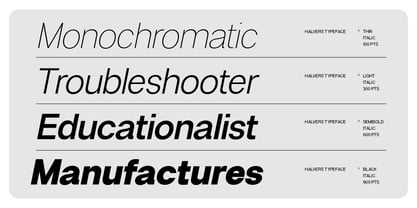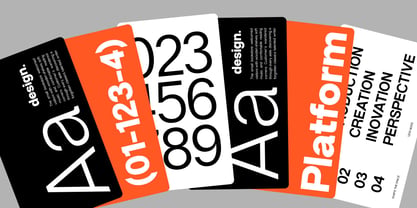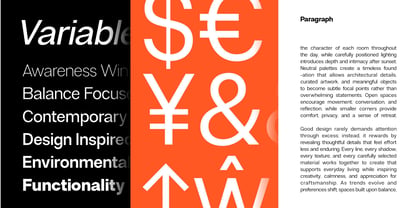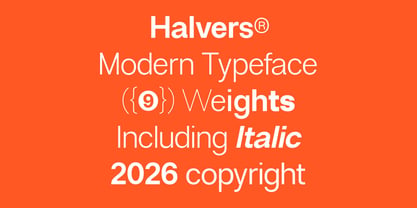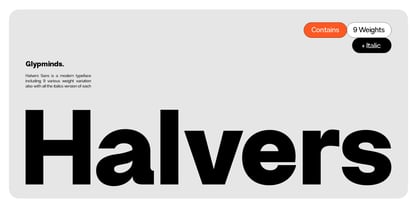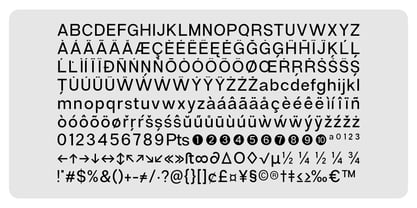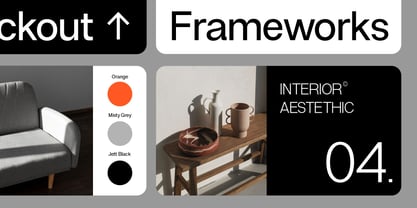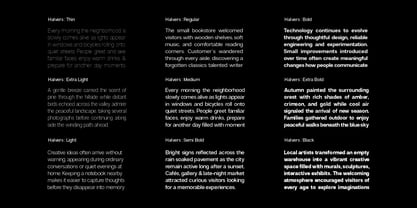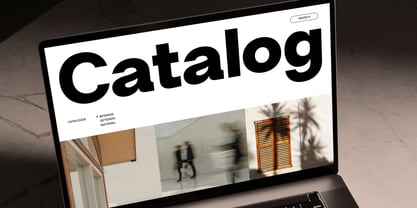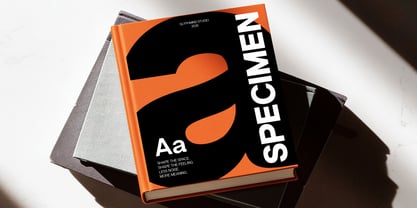
Halsara
by Glyphminds Studios
The Halsara Font Family was designed by Baliya Ibnu Bi Malkan and published by Glyphminds Studios. Halsara contains 10 styles. More about this family
Halsara – Modern Sans Serif Font Family
Elevate your next design project with Halsara, a clean and contemporary sans-serif typeface built for modern branding, editorial design, digital products, and professional communication.
Featuring 9 versatile weights with matching Italic styles, Halsara offers the flexibility needed for everything from bold headlines to refined body text. Its balanced proportions, geometric construction, and exceptional readability make it a dependable choice for designers, agencies, and creative professionals.
Whether you’re crafting a startup identity, designing a sleek website, creating marketing materials, or developing an editorial layout, Halsara provides the clarity and versatility your projects deserve.
From bold headlines to elegant interfaces, Halsara delivers a timeless modern look that adapts effortlessly across print and digital media
Designers: Baliya Ibnu Bi Malkan
Foundry: Glyphminds Studios